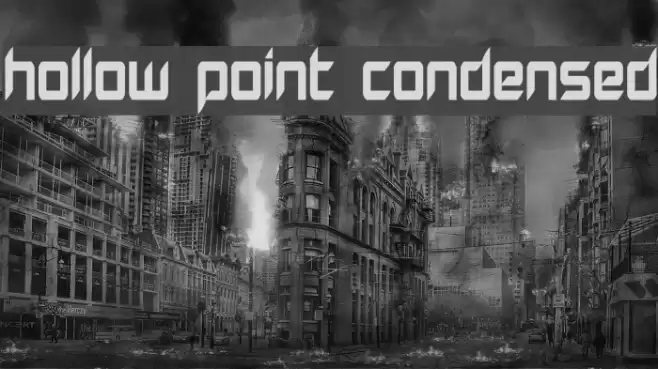
Hollow Point Condensed Font
Hollow Point Condensed Description
This font features a bold, geometric design with sharp angles and a futuristic aesthetic. The characters are condensed, giving a compact appearance that is both modern and dynamic. The uppercase and lowercase letters maintain a consistent style, with angular cuts and a uniform stroke width. The numerals and special characters follow the same design principles, ensuring a cohesive look across all elements. The font's unique style makes it suitable for projects that require a strong visual impact.
A bold, geometric, and condensed font with a futuristic style from Uncategorized fonts.
- Proposed Projects: Ideal for sci-fi themed designs, technology branding, video game titles, and modern posters.
- Character Spacing: Tight
- Overall Style: Futuristic